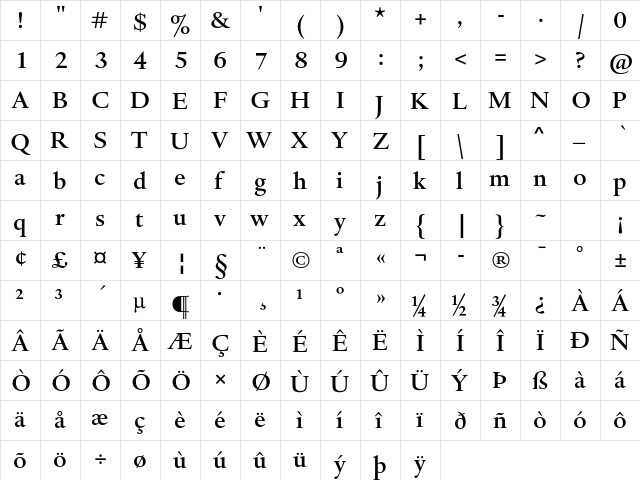
Haarlemmer MT Std Medium
Design Context for Haarlemmer MT Std Typeface
Haarlemmer MT Std takes a measured approach to typography — its balanced proportions and neutral character make it a reliable workhorse for both digital and print work.